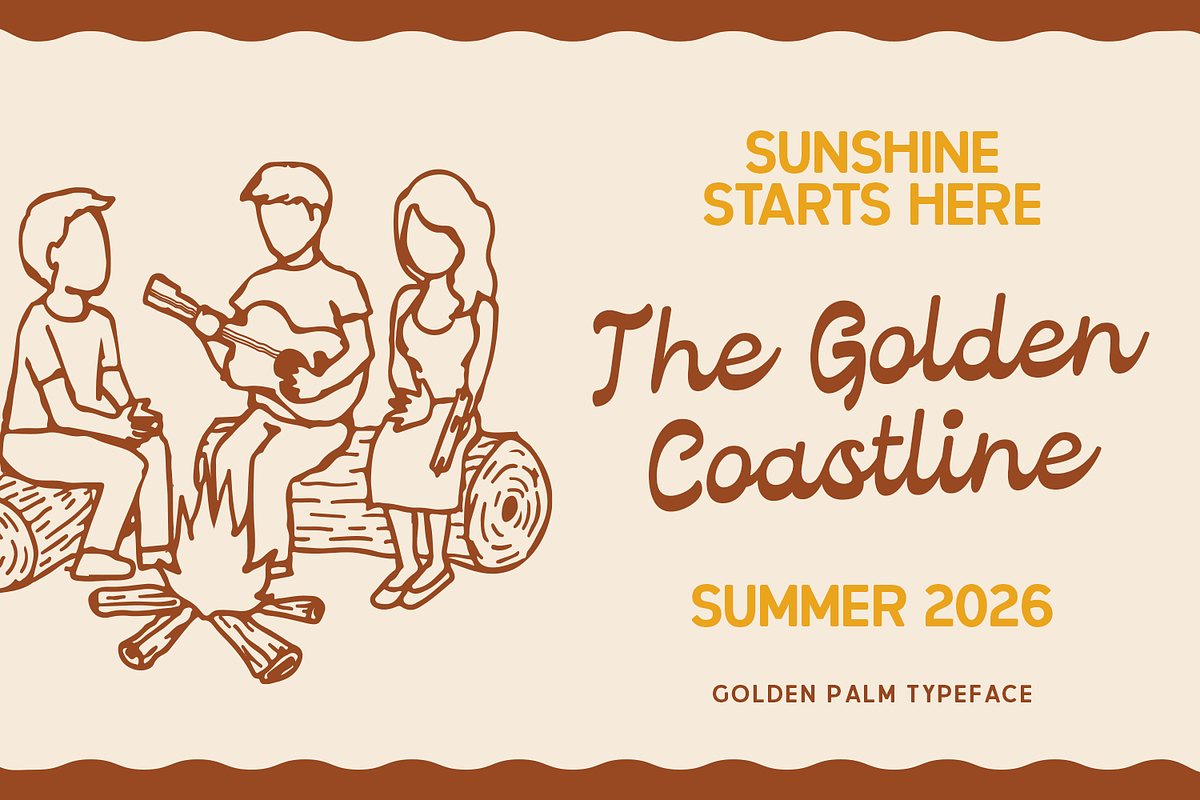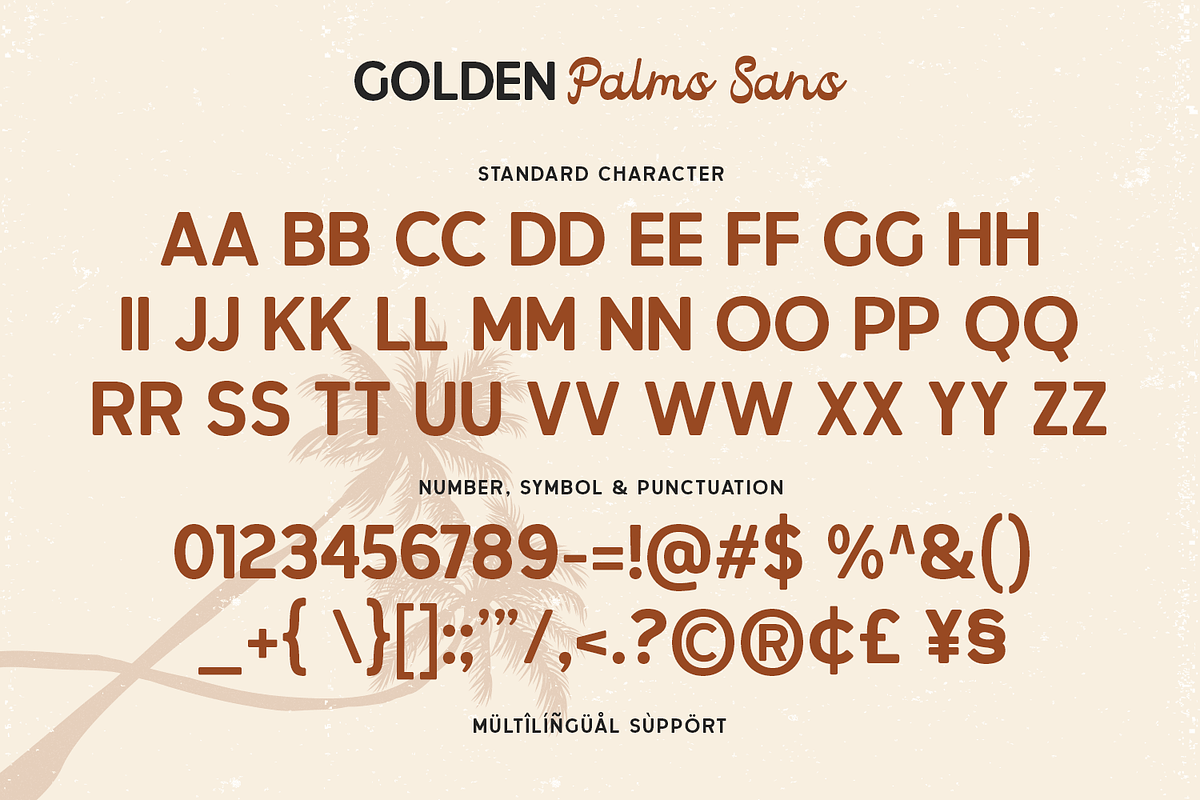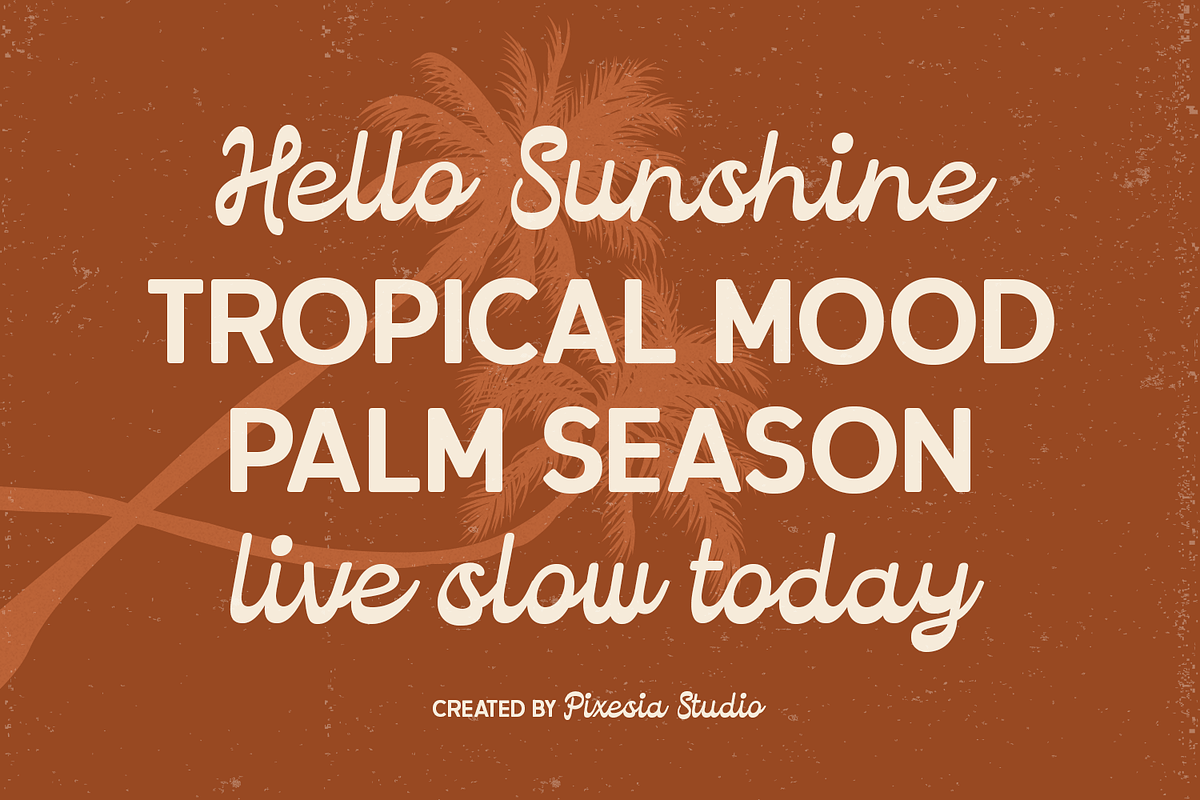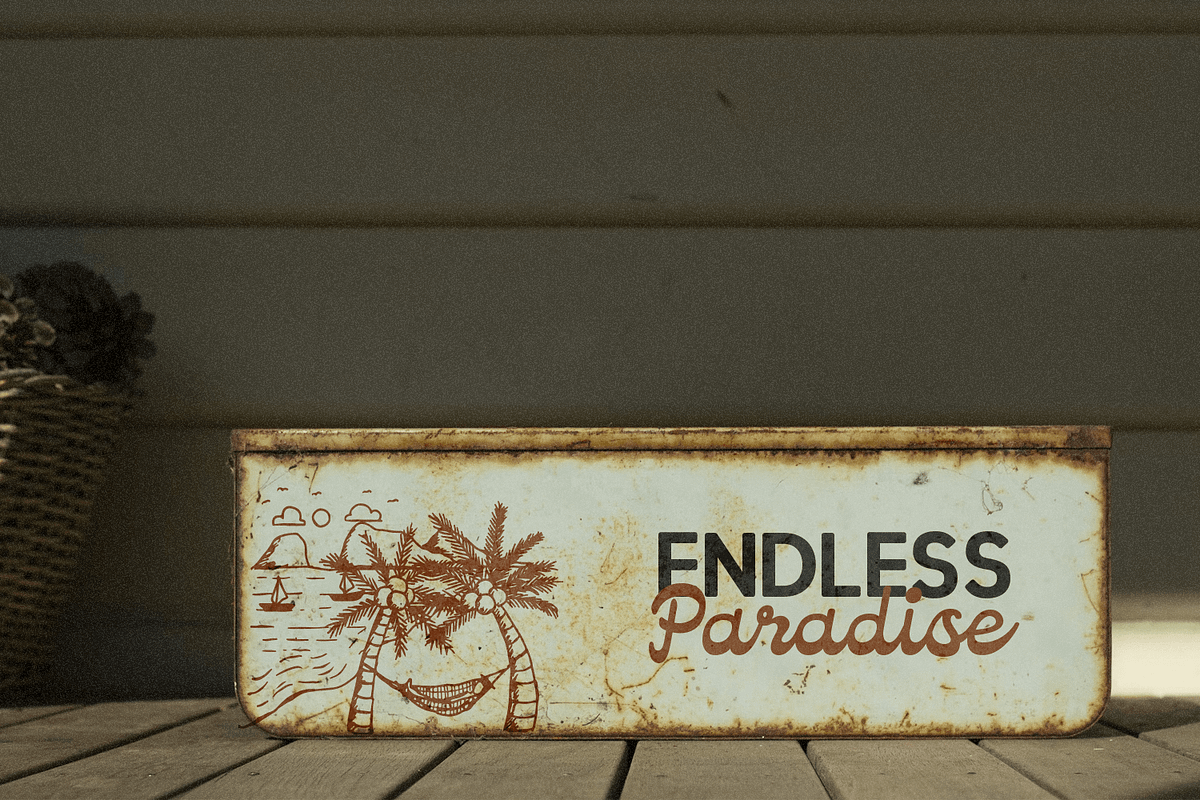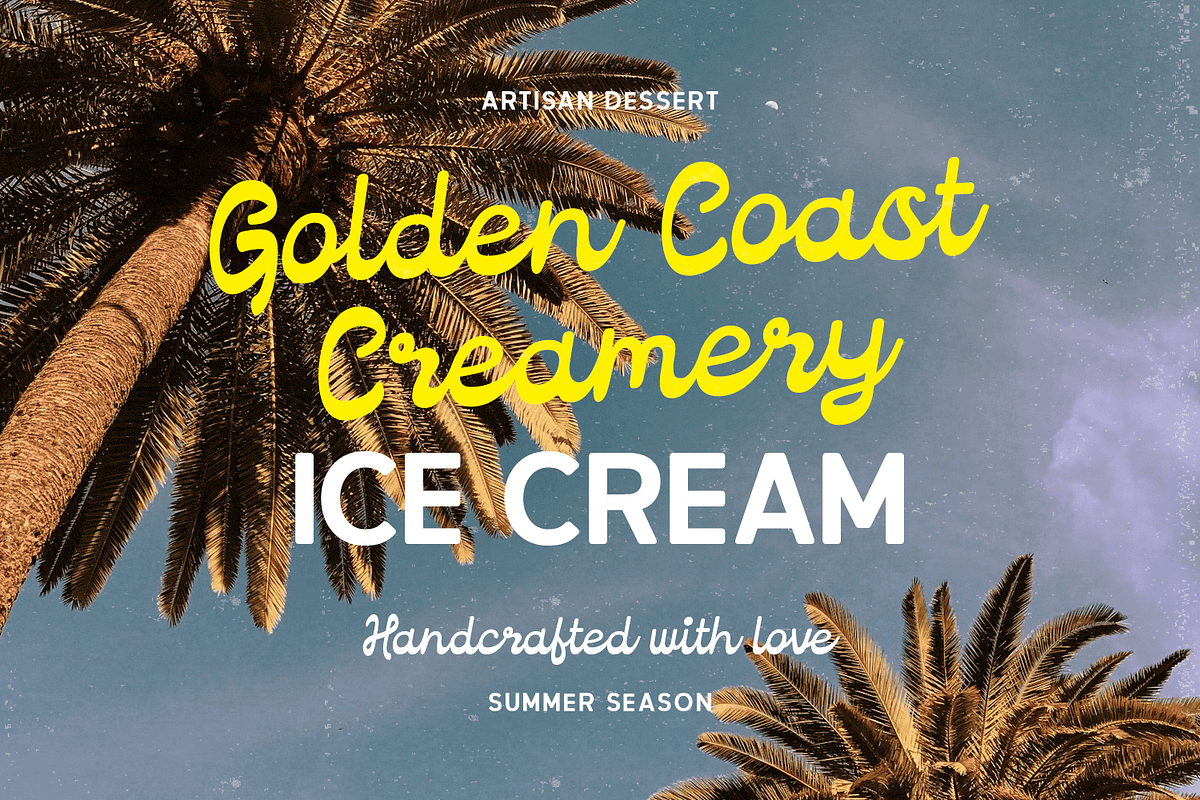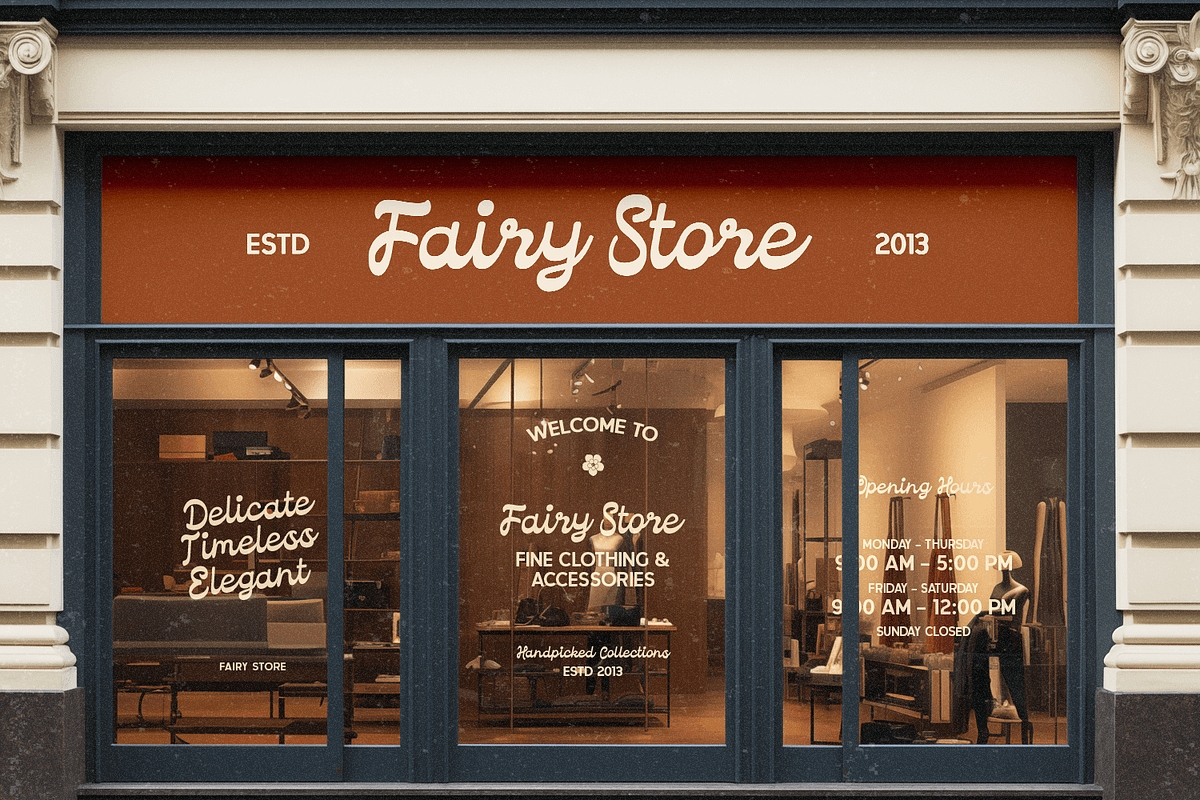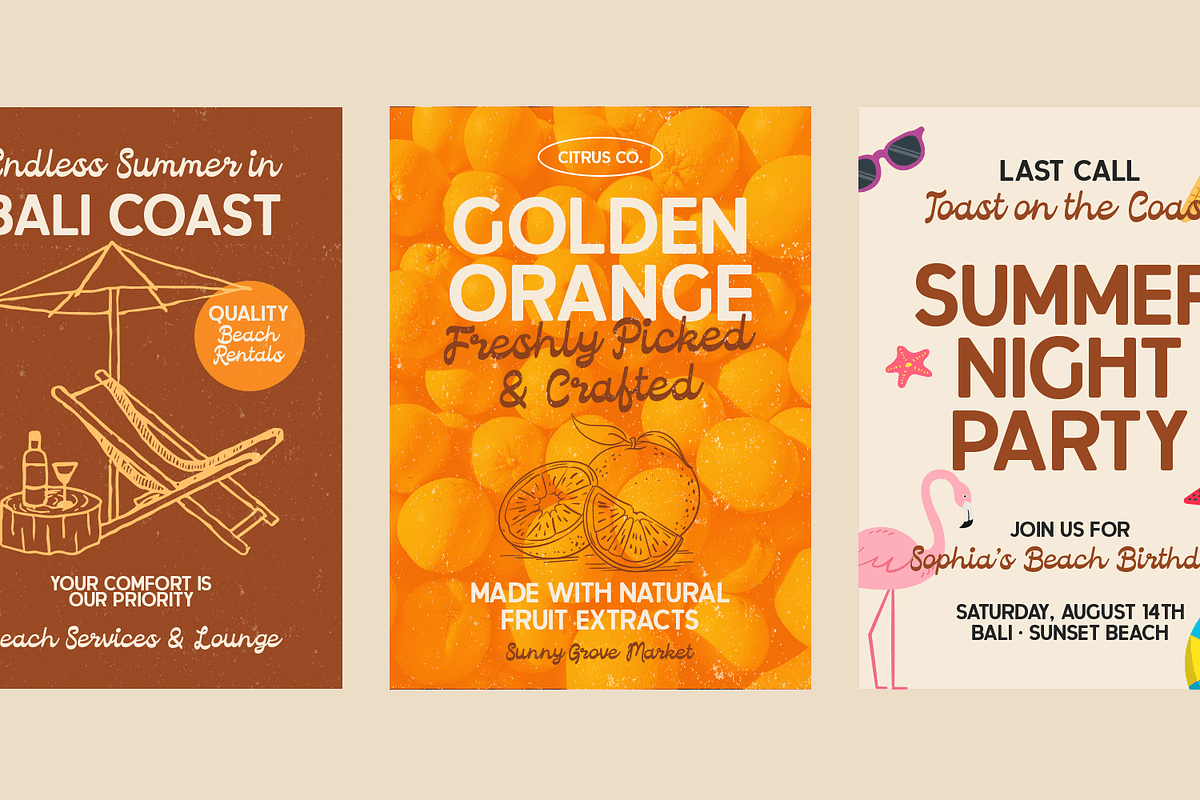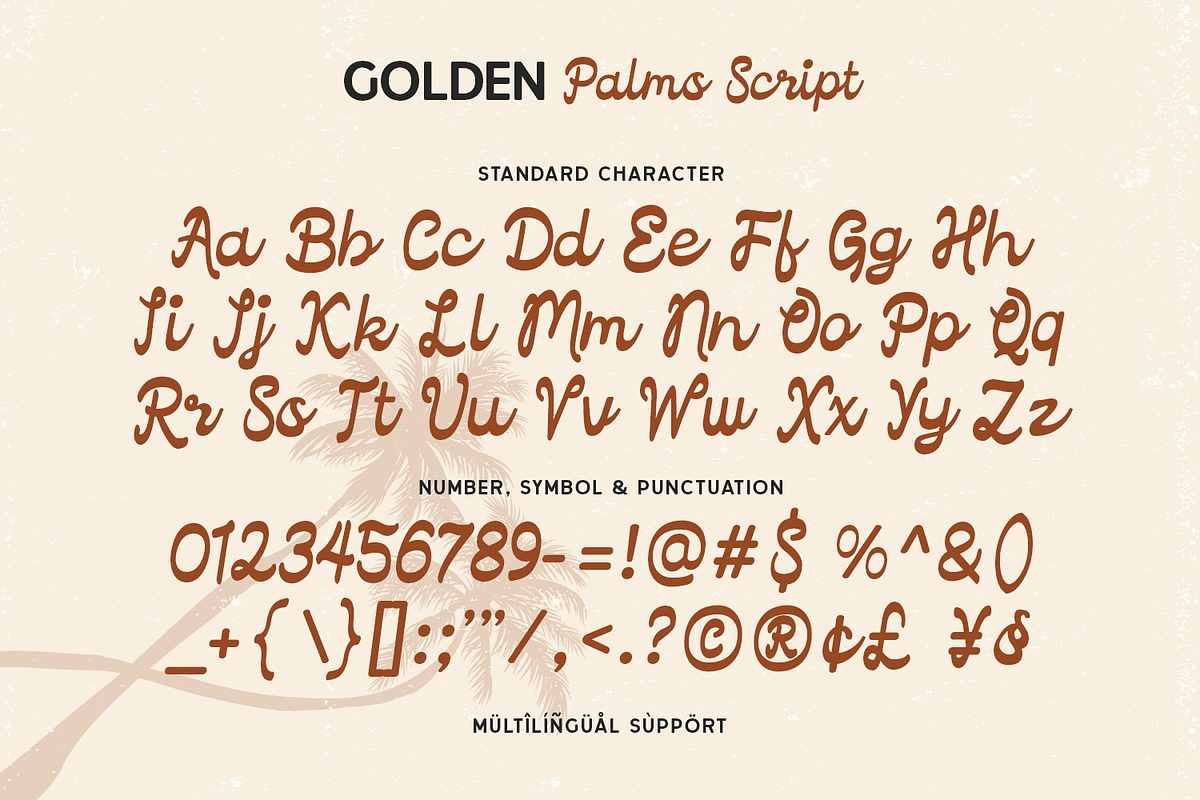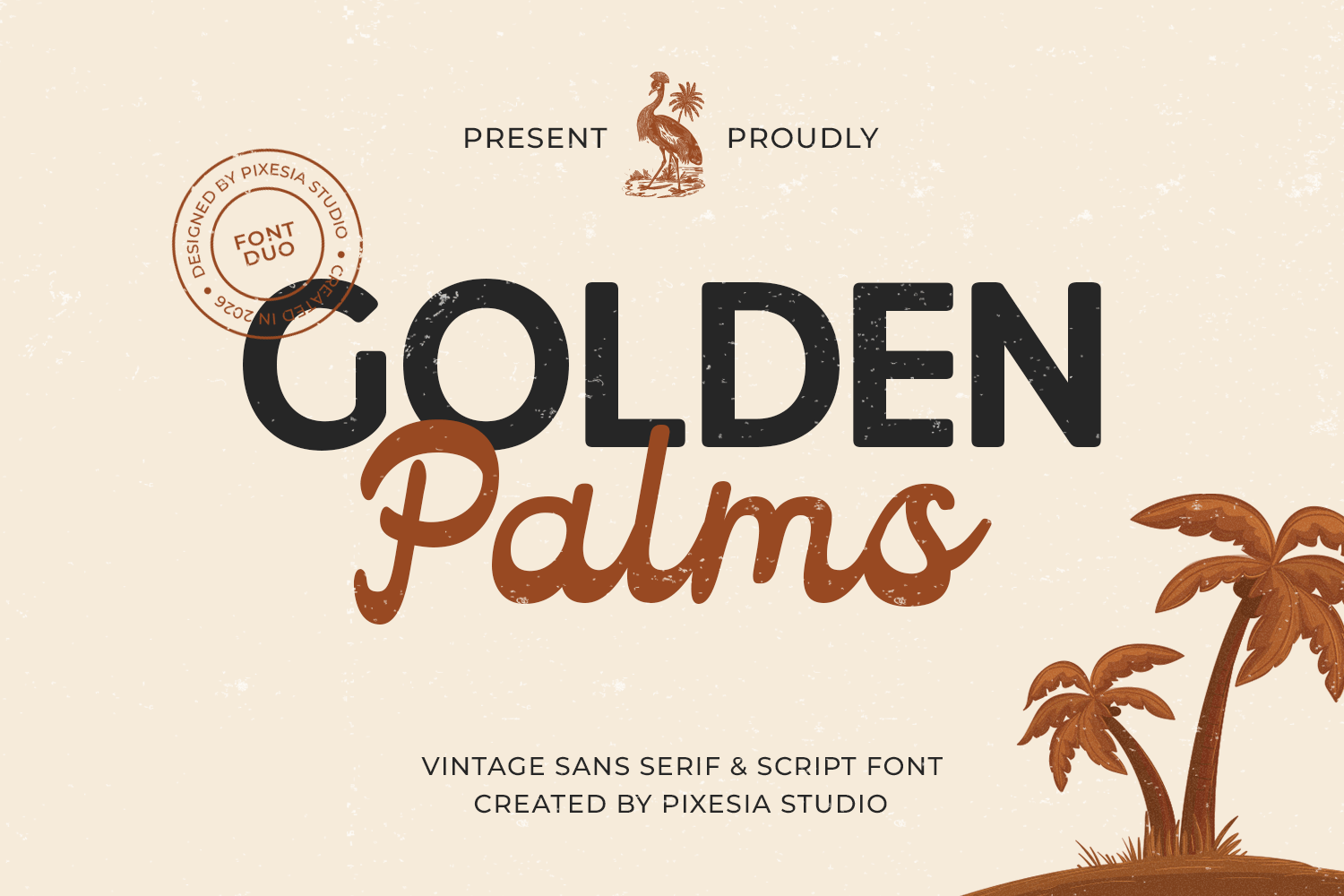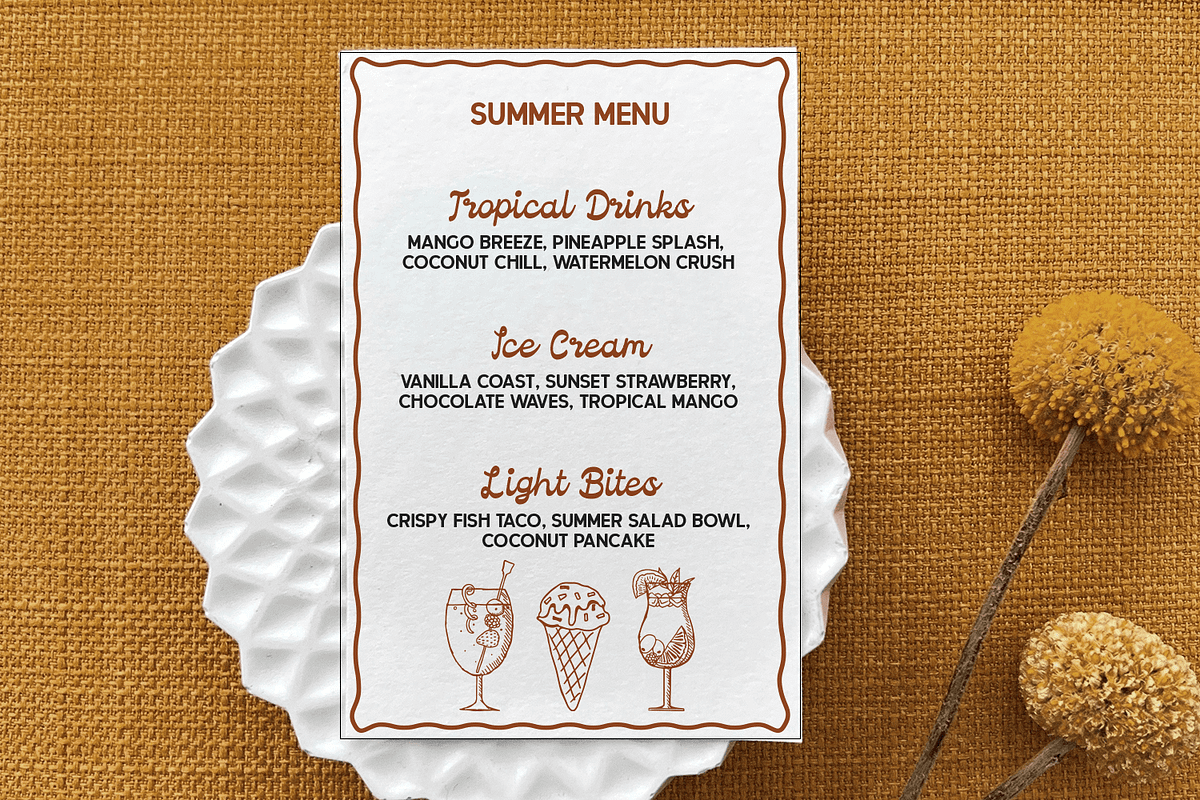
Golden Palms - Vintage Font Duo
Introducing Golden Palms - Vintage Font Duo
Golden Palms is a stylish vintage font duo that blends a bold sans serif with a smooth handwritten script. Inspired by tropical landscapes and retro travel aesthetics, this pairing creates a warm, nostalgic look that feels both relaxed and timeless. The combination allows you to craft eye-catching typography with contrast and harmony in every design.
Perfect for branding, packaging, travel projects, beach-themed visuals, posters, logos, and social media content, Golden Palms brings a laid-back coastal charm to your work. Whether you're designing for tropical businesses or retro-inspired concepts, this font duo delivers versatility, personality, and a distinctive vintage vibe.